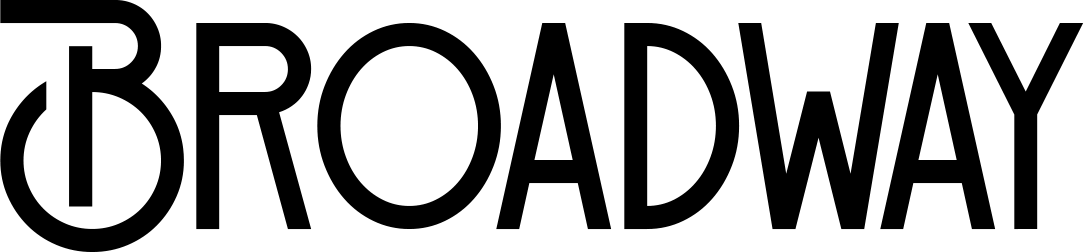
Broadway Font
You have found the most interesting and eye-catching retro font, that you may come across! Broadway offers characters that will help you achieve typography with a vintage feel. The sans serif style of the slim bold characters makes it look friendly with an energetic feel.
The best part is Broadway offers 2 sets of capital alphabets but no lowercase letters, numbers, or punctuations are included. Consider it very useful for movie titles, books, text, branding, headings, and more.